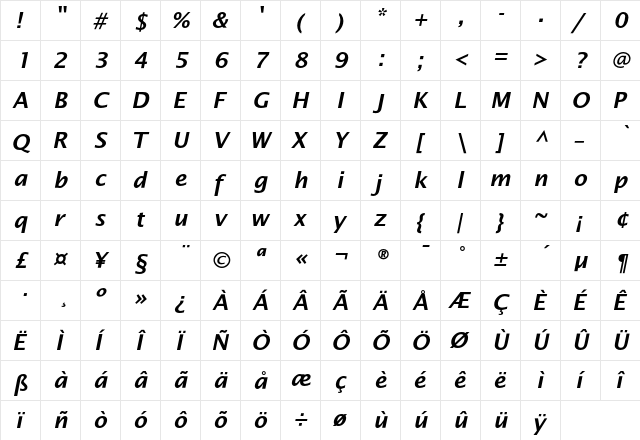
LucidaSansEF DemiBoldIta Font Preview
LucidaSansEF DemiBoldIta
Design Context for LucidaSansEF Typeface
LucidaSansEF is a composed and adaptable typeface that performs quietly and consistently across a wide range of design contexts. The heavy weight commands attention and anchors typographic hierarchies.